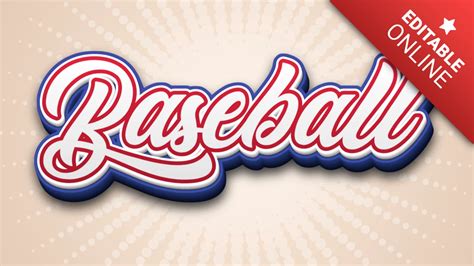
Create Stunning Baseball Logos: Your Guide To Font Generators
Create Stunning Baseball Logos: Your Guide to Font Generators
Hey baseball fans and graphic design enthusiasts! Ever wondered how to create those amazing baseball logos and team graphics you see all over the place? Well, a crucial element in achieving that authentic baseball look is the font. That’s where an iboston baseball font generator comes in handy. It’s a fantastic tool to quickly and easily create text that perfectly captures the spirit of the game. Let’s dive in and explore the world of these font generators, how they work, and how you can use them to bring your baseball-themed designs to life. We will also touch on the history of baseball fonts and how they have evolved over the years, from the classic block lettering to the more modern, stylized fonts you see today. Knowing this can help inform your design choices and give your work a deeper sense of authenticity. From creating team logos to designing social media graphics for your favorite team, the possibilities are endless with the right font. A good font generator will offer a variety of customization options, allowing you to tailor the text to fit your specific needs. This might include adjusting the size, color, spacing, and even adding special effects like outlines or shadows. Keep reading, guys, and we will equip you with all the knowledge you need to get started.
Understanding the Basics of Baseball Fonts
Baseball fonts , at their core, are designed to evoke the unique aesthetic of the sport. They often feature bold, blocky letterforms, or stylized scripts that mirror the dynamism and energy of the game. When you’re using an iboston baseball font generator , you’re essentially working with a digital tool that provides access to these specific font styles. The aim is to replicate the fonts seen on jerseys, stadium signage, and other baseball-related items. The character of the font is essential for conveying the right message. The choices reflect different eras of baseball, team identities, and the overall feel of the design. A traditional block font might suggest a sense of history and tradition, while a more modern script font could communicate a sense of speed and innovation. It’s about finding the right balance to complement your overall design vision. Think about the font as a crucial part of the visual communication strategy, helping to tell the story of your brand or team. Think about the team you are representing. A professional baseball team will want a more polished and professional look, while a little league team might opt for a friendlier and more approachable font. Also, the font itself is made up of different elements such as the serifs, the weight, and the overall style. Also, the kerning, which is the spacing between each letter, can impact the overall look of the design. Adjusting these settings is important to creating a design that is visually appealing and easy to read. Another tip is to consider the context in which your design will be used. A logo will have different needs compared to a banner or a social media post. Always ensure your font choices align with your target audience and the message you are trying to communicate.
Key Features to Look for in an Iboston Baseball Font Generator
If you’re looking for an iboston baseball font generator , there are several key features you should be on the lookout for. It’s not just about finding a tool; it’s about finding the right tool that will meet your specific needs and help you achieve the results you want. Firstly, you need a diverse selection of fonts. The generator should have a wide range of baseball-inspired fonts, from classic block fonts to more modern script styles. This variety ensures you have options to match your design vision. A versatile generator will allow you to customize the fonts to create a unique look. The customization options are the heart of a good font generator. The ability to modify the font size, color, spacing, and other elements is important for creating a polished design. Furthermore, make sure the tool allows you to add special effects like outlines, shadows, or textures. Another vital feature is user-friendliness. The tool should have a simple and intuitive interface. A complex tool can be frustrating and time-consuming. Look for a generator that is easy to use and does not require extensive design experience. A good generator will offer options to download your created text in various formats, such as PNG, JPG, and SVG. Consider the ability to test your design. Before downloading, make sure the generator allows you to preview the design. This allows you to see how your text will look in context. A generator with these features will provide a seamless and enjoyable design experience. Consider how you will use the font. Will it be used on printed materials, digital graphics, or both? This will impact the choice of file format and resolution. A generator that offers flexibility and ease of use will be invaluable in your design journey. Finally, ensure the generator is compatible with your existing design software or tools. Integration is key to making the design process smooth and efficient.
Step-by-Step Guide: Using a Baseball Font Generator
Alright, let’s get down to the nitty-gritty and walk through how to use an iboston baseball font generator . It’s easier than you might think! First, go online and find the generator of your choice. A quick search should reveal many options. Once you have found one, you will need to familiarize yourself with the interface. Most generators have a user-friendly layout. It should be easy to navigate and understand. Next, start by typing the text you want to generate. This could be your team name, a slogan, or any other text you wish to use in your design. Once you have entered the text, you can select the baseball font you want to use. Most generators have a drop-down menu or a visual preview of different font styles. Take your time to browse the available options and find one that matches your vision. After selecting your font, you can start customizing your text. Adjust the font size, color, and spacing to suit your needs. You can also experiment with other effects. Most generators allow you to add outlines, shadows, and other elements. Use the preview feature to check your work. Before downloading, make sure you’re happy with how the text looks. Use the preview function to see the design in context. When you are satisfied with the results, download the text in your preferred format. Most generators will provide options to download as PNG, JPG, or SVG files. Remember to always consider the intended use of the text when you choose the file format. Finally, integrate the generated text into your design project. Whether you’re working on a logo, a banner, or social media graphics, the text generated by the font generator will bring your design to life. This process is straightforward, and the result is a professional-looking design. Keep practicing, and you will become proficient in using these tools in no time. It will be helpful to create different designs and experiment with different fonts and customizations to increase your skills.
Designing Effective Baseball Logos with Fonts
Designing effective baseball logos is an art form. It’s about combining visual elements that communicate the team’s identity. One of the most important components of a great logo is the font. The font you select for your baseball logo will play a crucial role in setting the tone and conveying your team’s personality. The font should reflect the character of the team. A strong, bold font can communicate power and tradition, while a script font can add a sense of movement. Keep the style consistent with the team’s name and history. Consistency will create a memorable brand identity. Before you start designing, do some research. Look at other successful baseball logos for inspiration. Identify fonts and styles that resonate with you. This research can help you shape your own design ideas. Start by sketching out some ideas on paper. Experiment with different font styles, layouts, and color combinations. When you have a clear vision, move to a digital design tool. Start with the font and create a design that incorporates the chosen font. A good font generator will allow you to customize the text. You can adjust the size, color, spacing, and other effects. Also, consider the color palette for your logo. The color scheme can have a big impact on how the logo is perceived. Make sure the colors are visually appealing and representative of the team. Once you’re happy with the font and the color scheme, think about other elements such as the mascot or other imagery. Ensure that the font and other design elements work in harmony. You can create a compelling and professional-looking logo by taking the time to design each aspect carefully. This strategy will help to create an impactful and memorable logo that can leave a lasting impression on fans and the competition.
Troubleshooting Common Issues with Font Generators
The Future of Baseball Font Generators
The landscape of baseball font generators is constantly evolving, with new innovations and trends emerging. Keep an eye out for exciting developments in the future. We can expect to see enhanced customization options. Designers are constantly pushing the boundaries of what is possible, and these tools are following suit. This includes more sophisticated effects, advanced text manipulation tools, and more intuitive design interfaces. As technology advances, we’re likely to see greater integration with other design tools and platforms. This integration will make it easier for designers to incorporate baseball fonts into their projects. AI-powered design tools will play a more prominent role. AI can help automate design tasks, suggest font pairings, and generate unique font variations. We might see an increased focus on 3D font creation and animation. This adds depth and dynamism to designs. This will be very helpful for creating logos and promotional content. With the evolution of these tools, we can expect to see an increased emphasis on accessibility. This will help make the tools more user-friendly for people of all skill levels. The future of baseball font generators is bright. New technologies will further enhance the design experience, resulting in even more creative and visually stunning designs. Baseball font generators will continue to play a pivotal role in creating baseball-related content, from team logos to promotional materials.
Conclusion: Unleash Your Creativity
There you have it, folks! Now you have a good understanding of how to use an iboston baseball font generator . You now know how they work, the features to look for, and the best practices for designing baseball logos. You’re well on your way to creating stunning designs. It’s time to unleash your creativity and start designing. Whether you’re a seasoned designer or a complete beginner, these tools are a great way to bring your vision to life. So go ahead, start experimenting with different fonts and customization options. Don’t be afraid to try new things and see what you can create. The more you practice and experiment, the more skilled you’ll become. So, get out there and start creating amazing baseball-themed designs. Have fun with it, and let your creativity soar. Happy designing, and enjoy the game! I hope you’ve found this guide helpful and inspiring. If you have any questions or need further assistance, don’t hesitate to ask. Happy designing, and go make some amazing art.